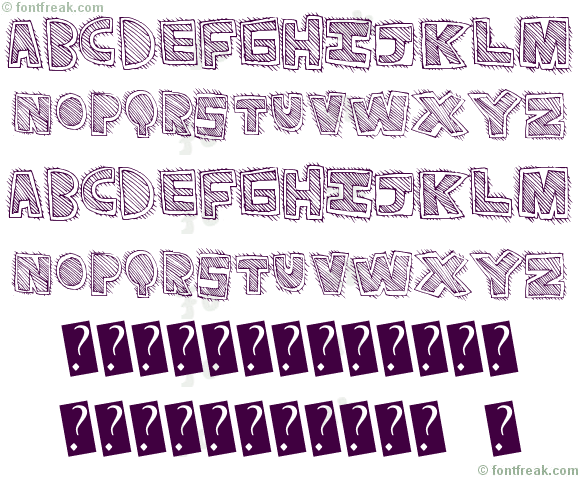
PhatRave
PhatRave is a unique display font designed by XEROGRAPHER FONTS, characterized by its hand-drawn, sketch-like aesthetic. This font falls into the decorative category, making it an eye-catching choice for creative projects that require a touch of personality. The visual characteristics of PhatRave include bold, thick strokes that convey a sense of energy and playfulness. The uneven line weight and whimsical details give it a hand-crafted feel, while the spacing between letters adds to its overall charm and legibility.
PhatRave is particularly well-suited for a variety of applications. Its vibrant style makes it ideal for posters promoting music events, festivals, or art shows, where capturing attention is essential. The font can also enhance the appeal of merchandise designs, such as T-shirts or stickers, appealing to a youthful audience. Additionally, it can be effectively used in social media graphics or blog headers, providing a unique flair that stands out in a crowded digital space. Small business owners looking to create a memorable brand identity can leverage this font for their logos or promotional materials, ensuring they resonate with their target demographic.
Graphic designers and content creators will find PhatRave font free download a valuable addition to their toolkit, as it fosters creativity and originality. Its versatility allows it to adapt to various themes, from casual to artistic, making it suitable for a broad range of projects.
What sets PhatRave apart is its distinctive hand-drawn quality, which brings a fresh, organic touch to modern typography. This font invites users to think outside the box, encouraging a playful approach to design that is both engaging and memorable. Whether you’re crafting an event flyer or a branding project, PhatRave is sure to leave a lasting impression.